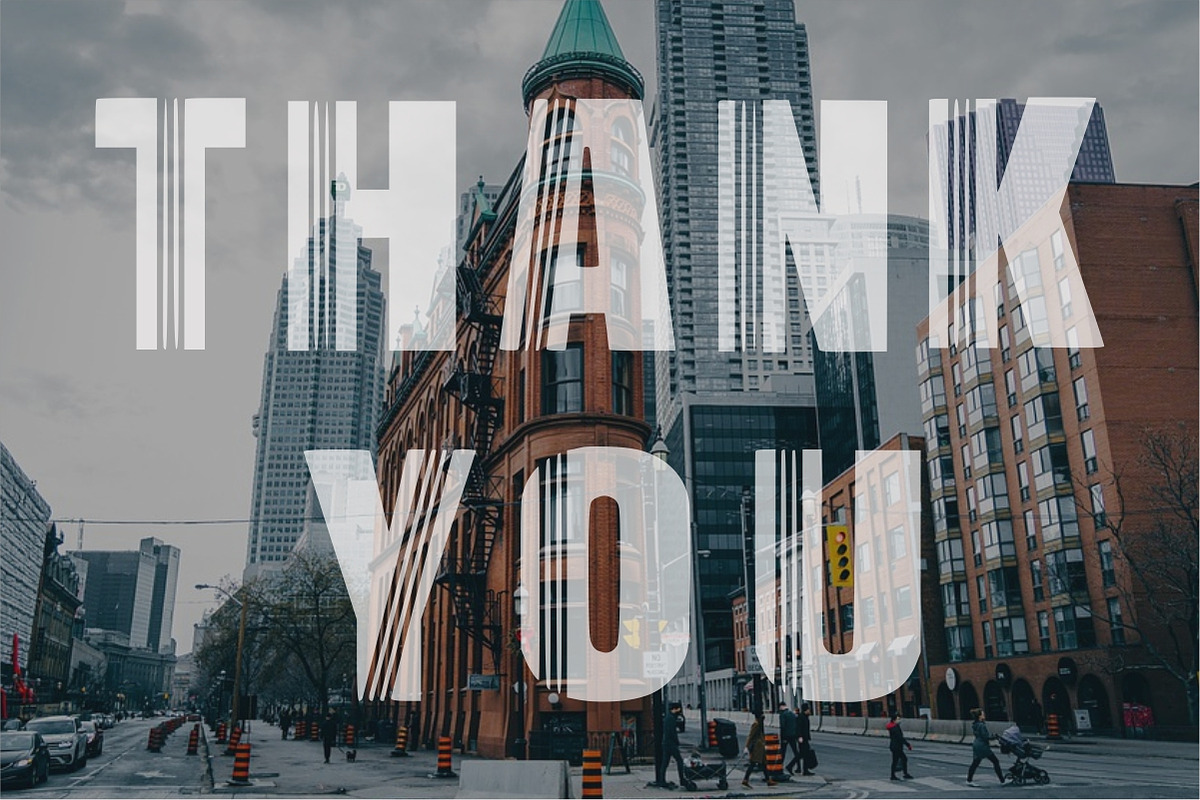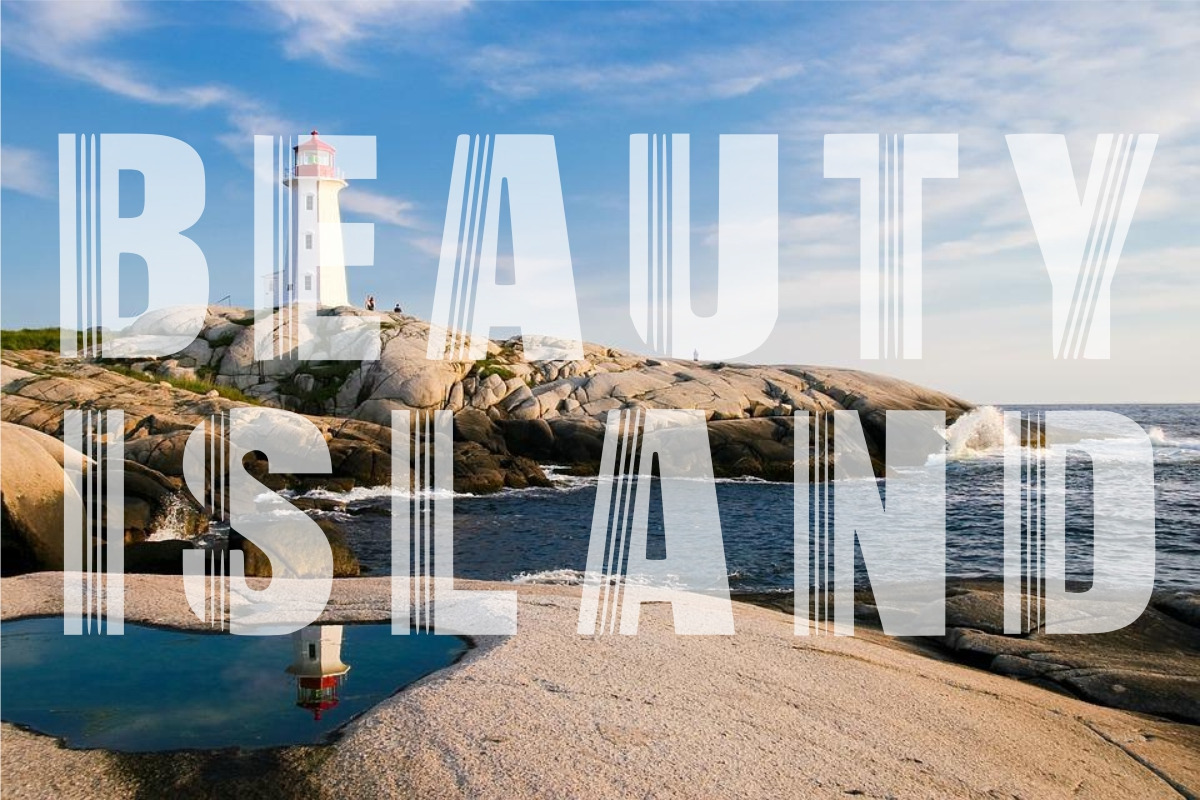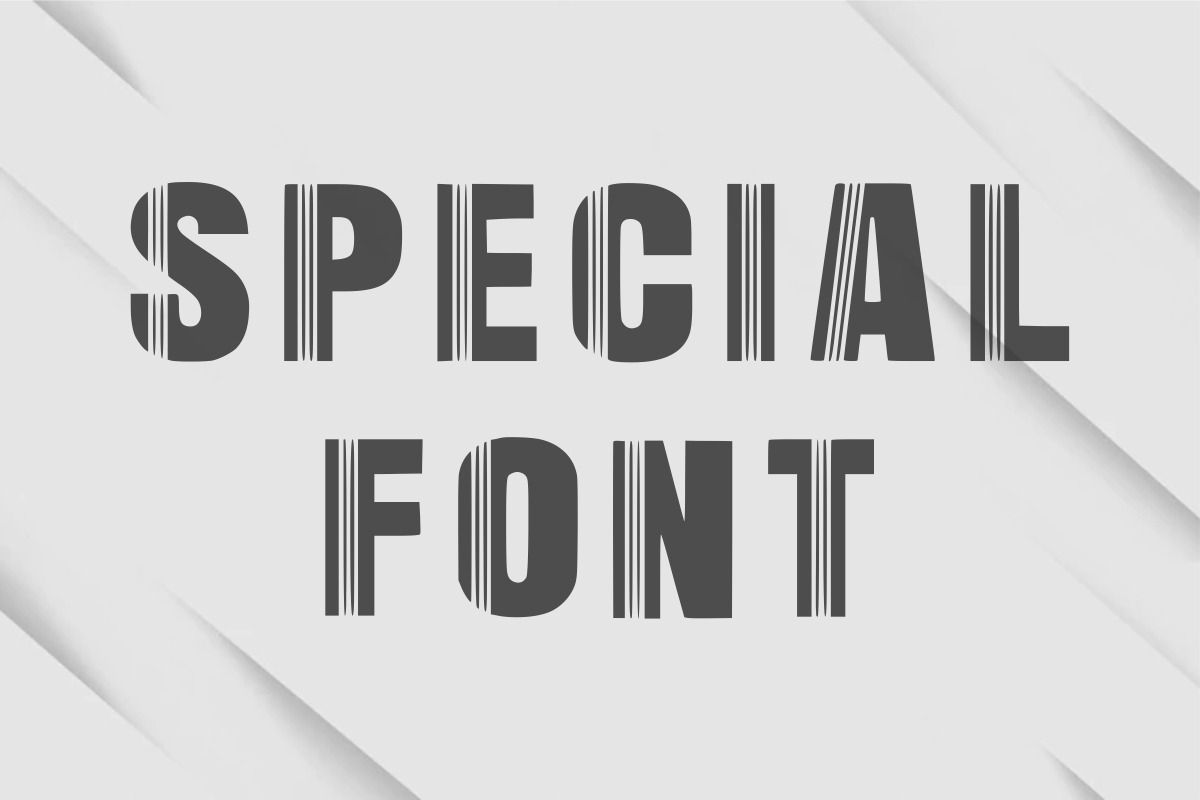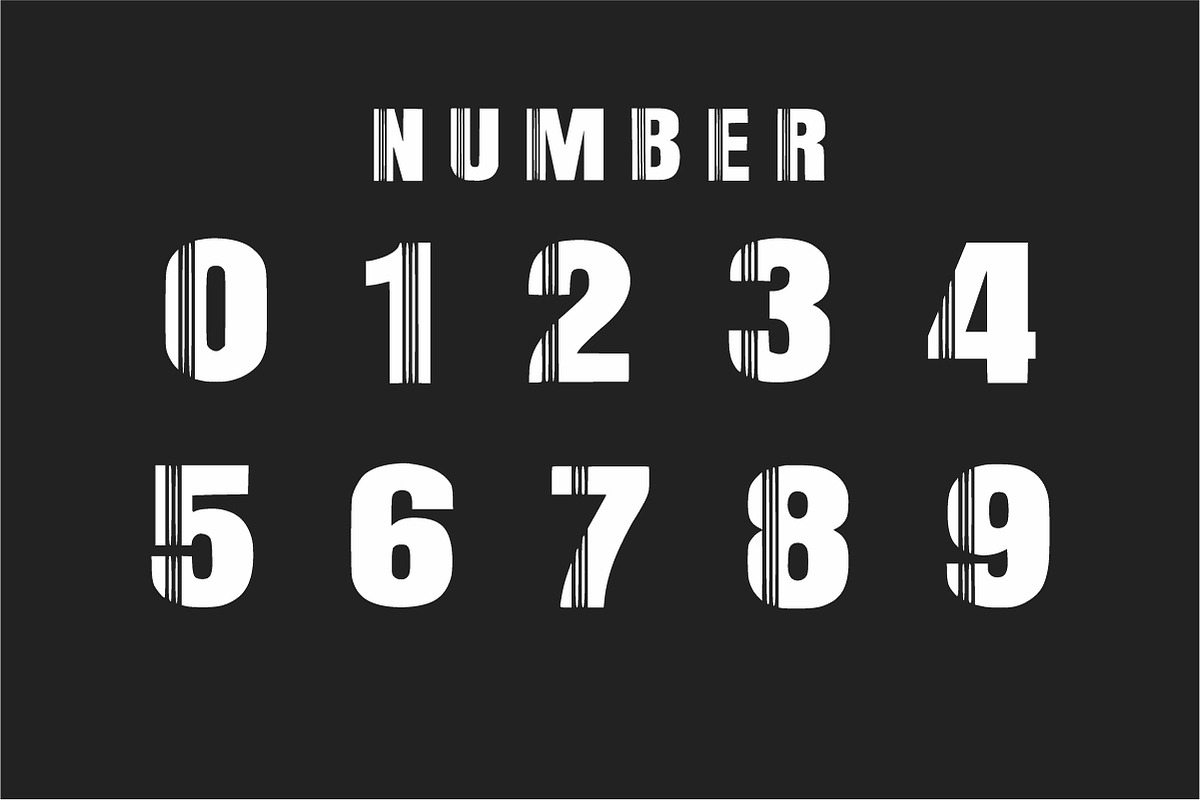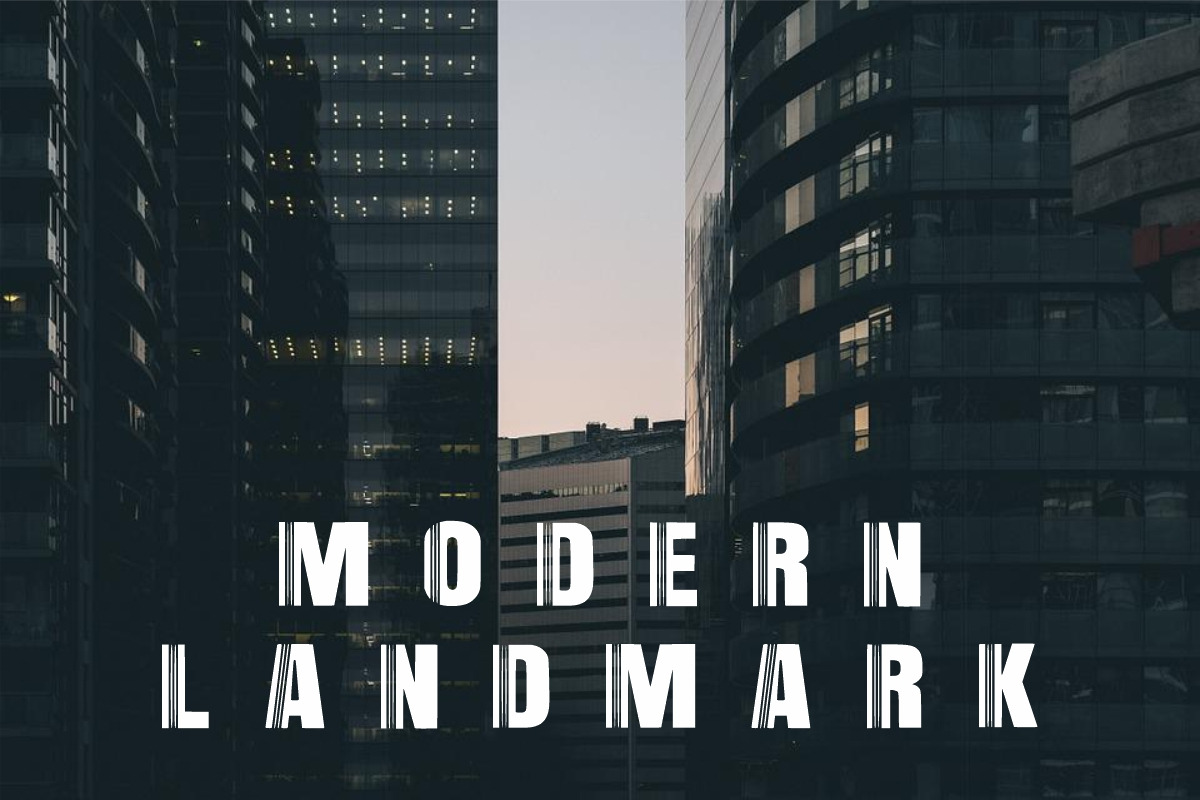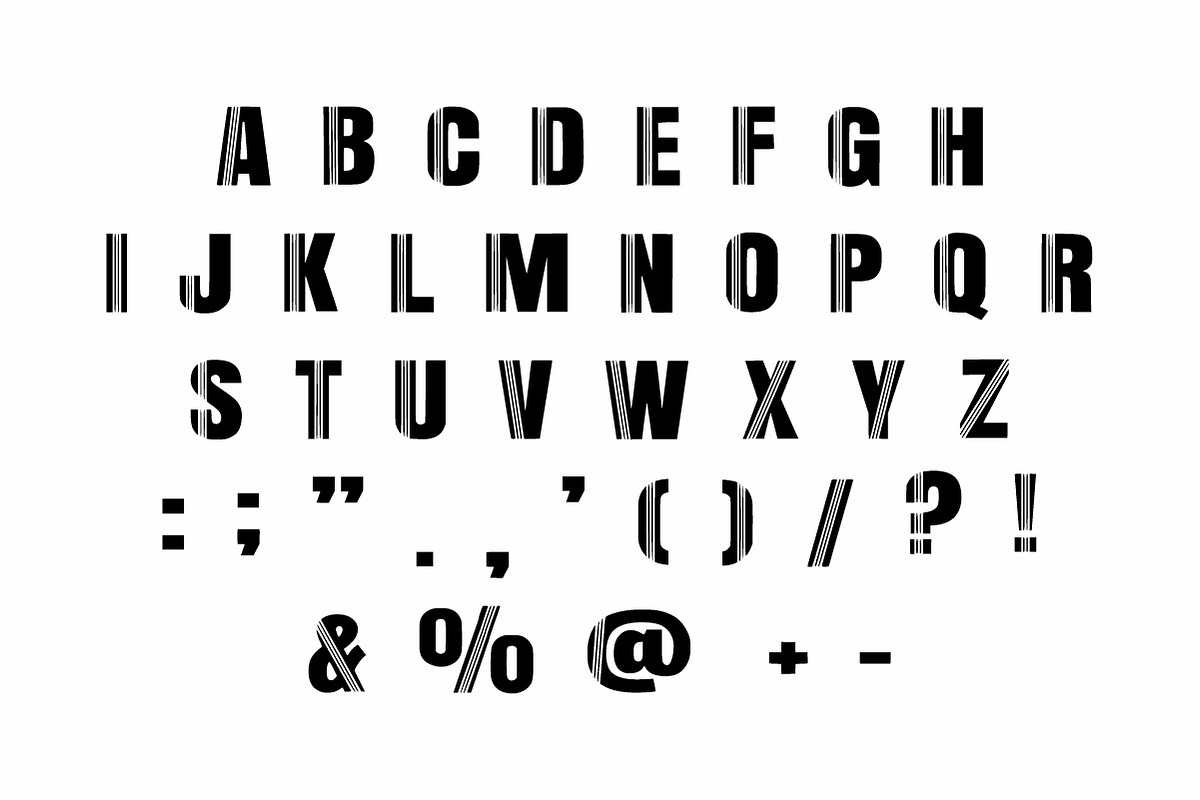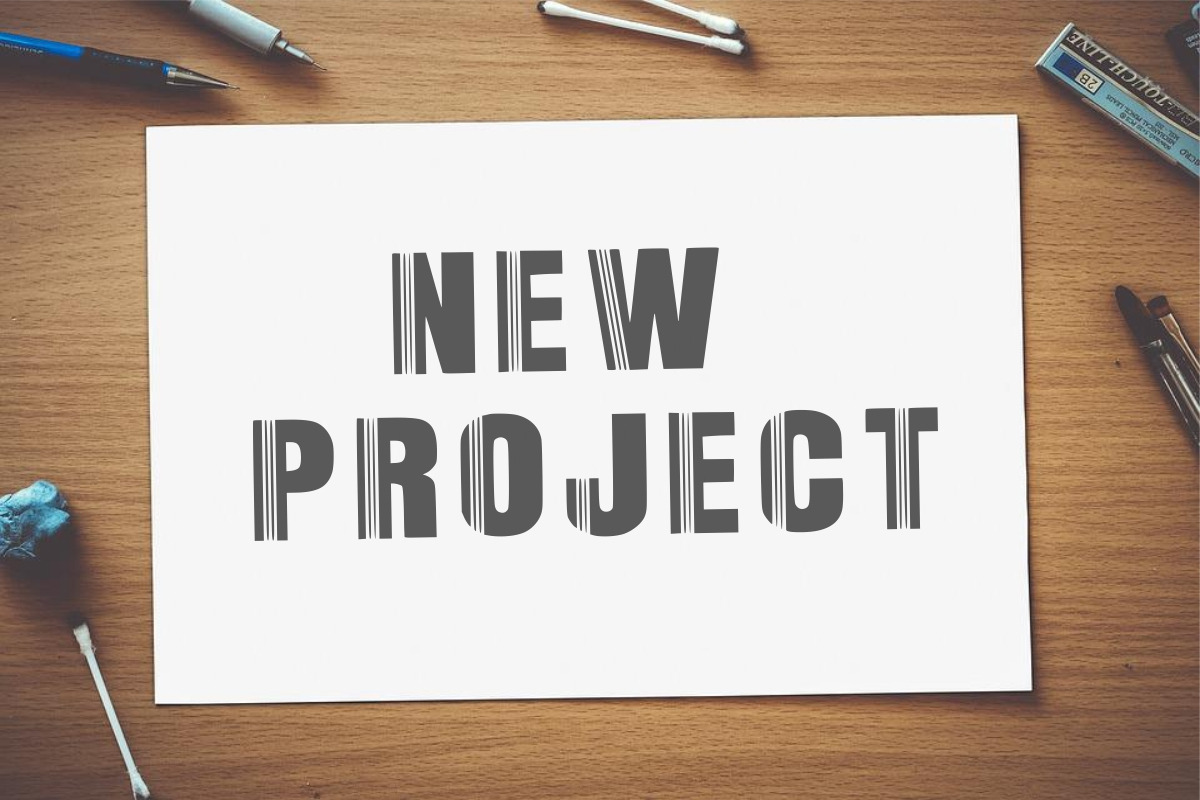
Canada
Canada is a cool and bold display font with 3-line shape elements. It is suitable for any winter and holiday branding project, product packaging, invitation, quote, t-shirt, label, poster, text effect, label, and logo that you wish to develop.